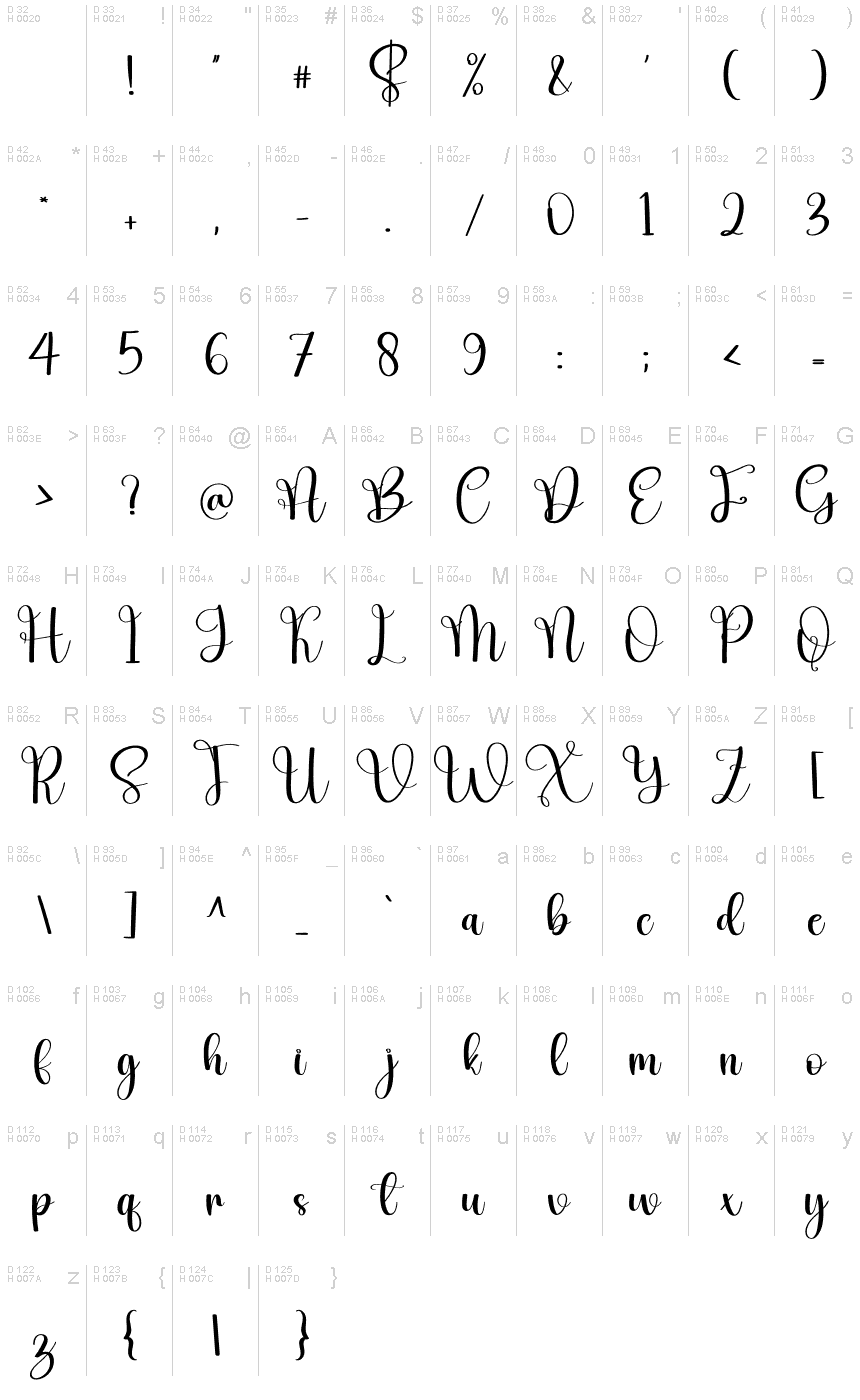
Thinking
Thinking, a captivating calligraphy font designed by Harlek Studio, is an exquisite choice for projects seeking elegance and sophistication.
Its semi-light weight adds a delicate touch to invitations, wedding stationery, and event branding. The sweeping curves and graceful strokes of this font convey a sense of romance, making it perfect for love letters or poetry collections. Thinking's flowing script also lends itself well to logo designs and branding materials for high-end fashion labels or upscale beauty products.
With its timeless charm and versatility, this font will surely leave a lasting impression on any creative endeavor.